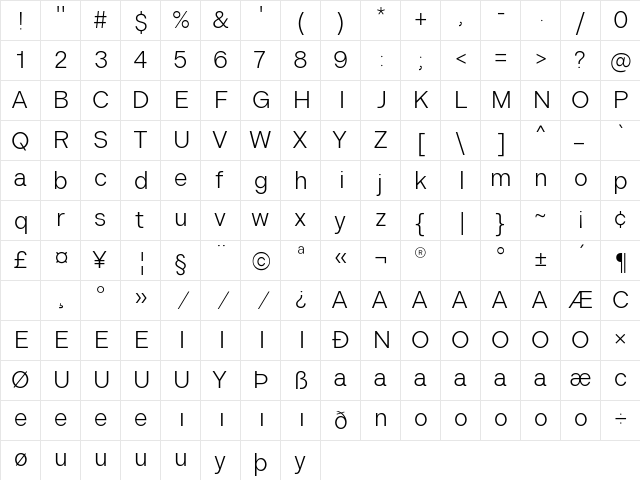
Kiwari Kiwari Light
| Foundry | Kiwari Supply by Kiwari Studio |
| Designer | Akbar Rohmanto |
Design Context for Kiwari Typeface
Kiwari offers clean, dependable letterforms without strong stylistic allegiance, making it a practical choice for designers who need flexibility. The delicate stroke weight brings airiness and refinement to layouts.